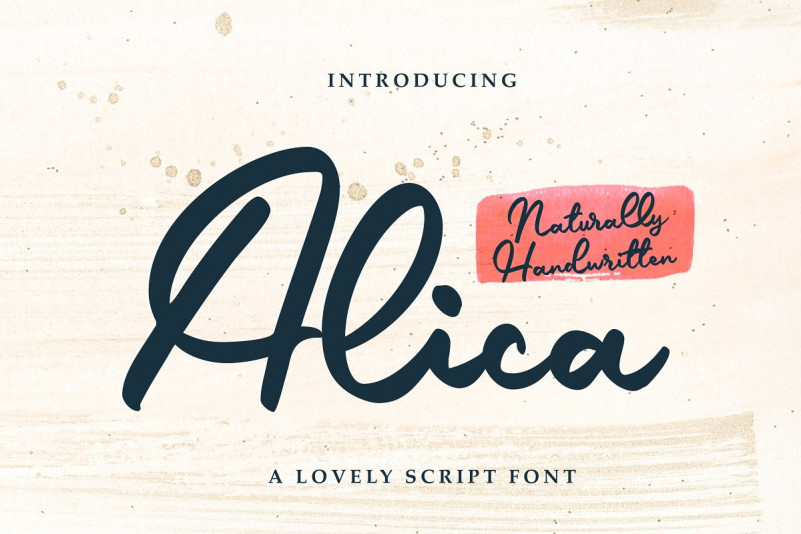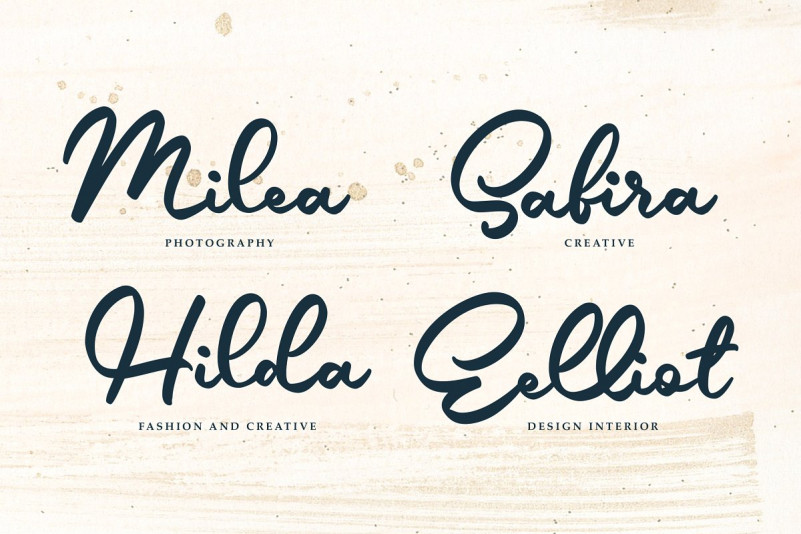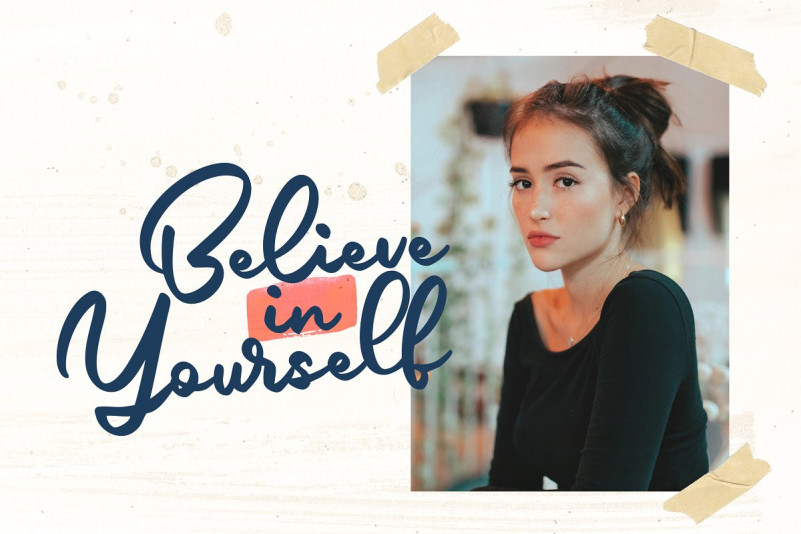
Alica Font
Alica Font is a handwritten font that is perfect for branding, social media headers, product packaging, wedding invites and cards and so on. This font is completely hand-drawn and contain ligatures to perfectly re-create natural handwriting.